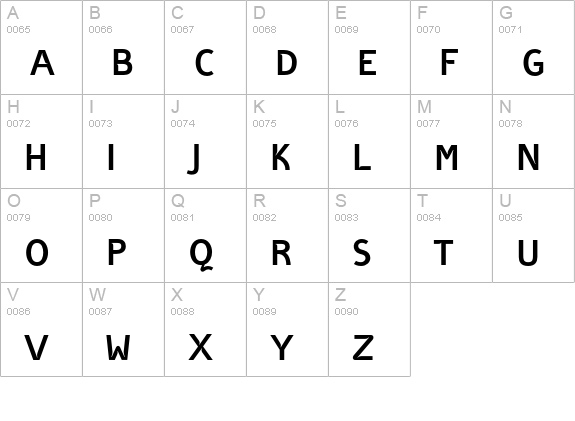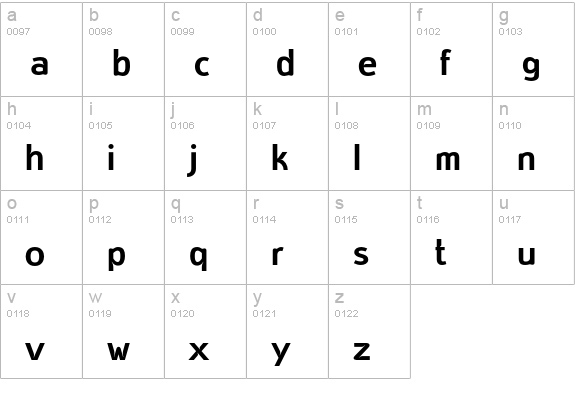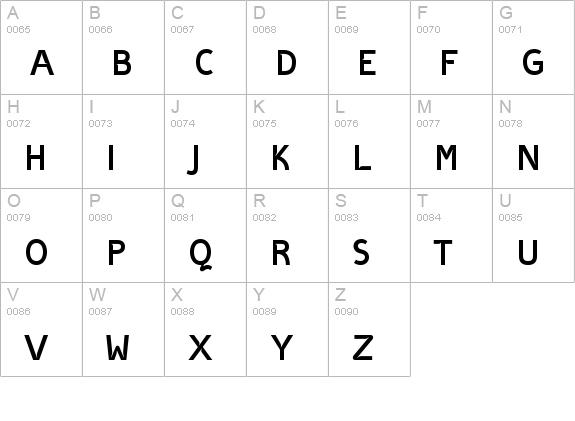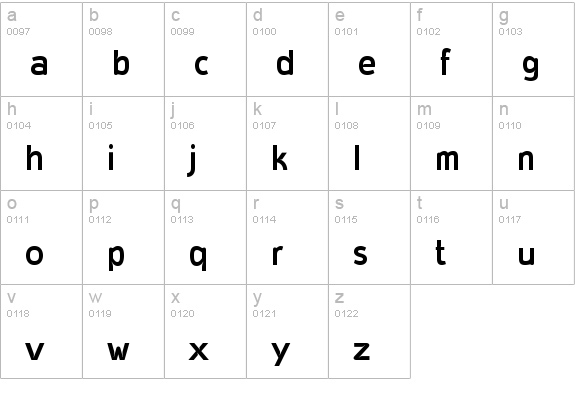
Plastizid97-Fett Font Details
Plastizid97-Fett font is a modern and stylish typeface that exudes confidence and sophistication. Its bold and eye-catching design makes it perfect for grabbing attention and making a statement in any project. The sharp edges and sleek lines of this font give it a distinctive and edgy look that is sure to stand out. What's even better is that Plastizid97-Fett font is available for free download at FontsMarket.com. This means you can easily access this stunning font and use it in your designs without any cost. Whether you're designing posters, logos, banners, or any other creative project, Plastizid97-Fett font is sure to elevate your work and leave a lasting impression. Don't miss out on the opportunity to enhance your designs with this beautiful and versatile font. Download Plastizid97-Fett font for free today and unleash your creativity like never before!